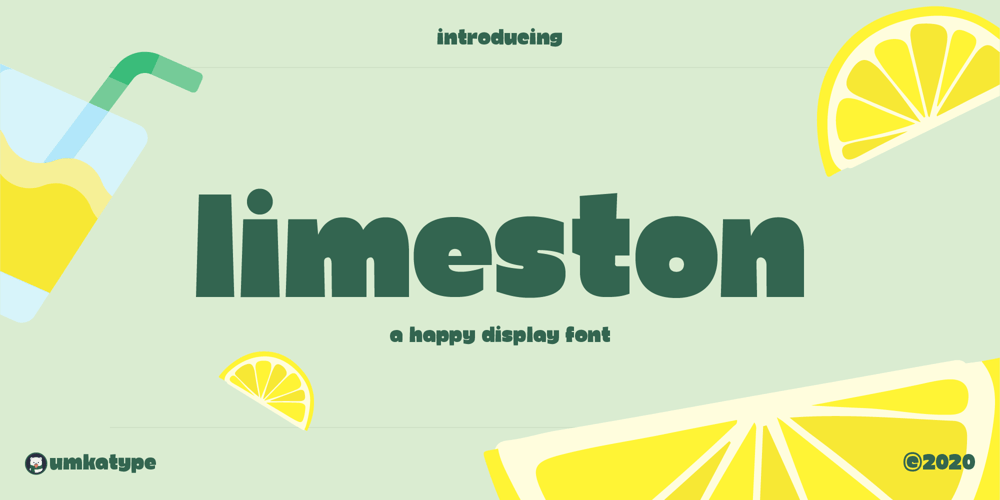
Limeston Font Family was designed by Alper Çakıcı and published by Umka Type. Limeston contains 1 styles and family package options. Limestone is a unique, modern and versatile font with excellent kerning, making it ideal for both digital and print use. It features full support for the Cyrillic language, allowing for seamless multilingual communication. Limestone’s unique design combines classic proportions with a contemporary feel, making it stand out from other same categories fonts.